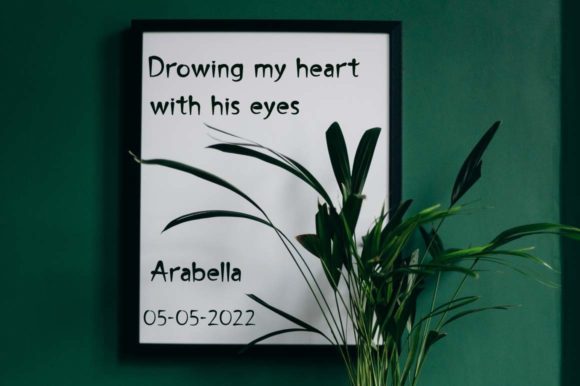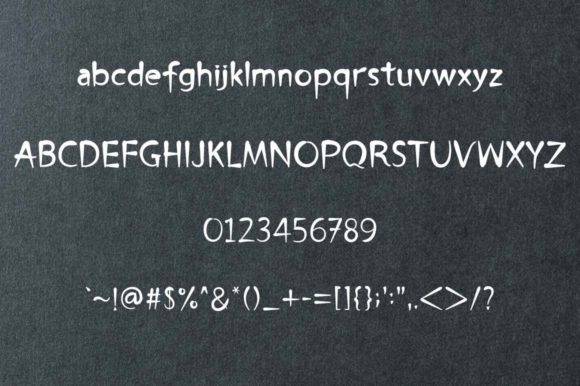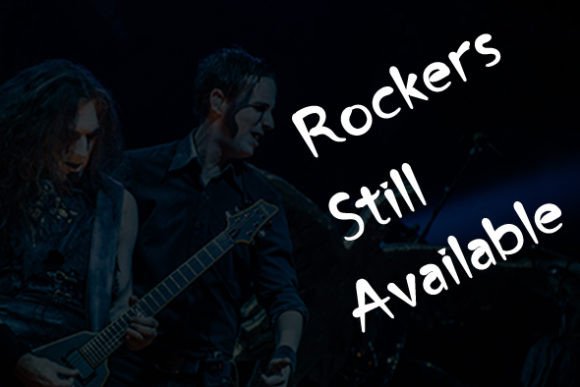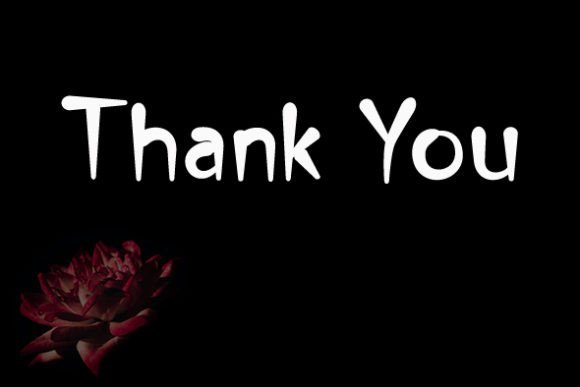
Introduction to Pionner Font
Have you ever been stuck on a creative project, staring at a blank canvas or a blank sheet of paper, and suddenly, a spark of inspiration strikes? It’s that moment when everything falls into place, and your vision starts to take shape. For designers, this moment is priceless, and the right font can make all the difference. That’s where the Pionner Font comes in – a cool and casual handwritten font that can elevate your work to the next level.
As a valuable design resource, Pionner Font offers a high-quality, unique look that’s perfect for a wide range of creative projects. Whether you’re designing t-shirts, creating logo names, or working on digital products, this font is sure to add a touch of elegance and sophistication. With a transparent background, you can easily layer it with other design elements to create a visually stunning effect.
Key Features of Pionner Font
- High-quality design resource suitable for various creative projects, including graphic design, digital art, and publishing.
- Comes with a transparent background, allowing for easy integration into different design elements.
- Includes a range of sizes, from 12 to 72 points, making it versatile for various design applications.
- Designed with a unique, modern aesthetic, making it an excellent choice for designers seeking a distinctive look.
Honest Review: Pionner Font
As a designer, I’m always on the lookout for high quality design resources that can elevate my creative projects. Recently, I came across the Pionner Font, and I’m excited to share my thoughts on it.
What works well: ✨ The Pionner Font is incredibly versatile, with a clean and modern design that works well for a variety of creative projects. The font is available for free download, making it a great option for designers on a budget. The transparent background is also a plus, allowing for seamless integration into any design.
- Perfect for digital designs, such as logos, icons, and graphics
- Works well for print designs, including business cards, brochures, and flyers
What doesn’t work well: ⚠️ While the Pionner Font is a great resource, it’s not without its limitations. The font may not be suitable for projects that require a more traditional or vintage aesthetic. Additionally, the font’s simplicity may make it feel a bit generic for more complex designs.
Overall impression: The Pionner Font is a solid addition to any designer’s toolkit. While it may not be the most unique or groundbreaking font, it’s a reliable and high-quality resource that’s perfect for a variety of creative projects.
How to Use Pionner Font
Pionner Font is a high-quality design resource perfect for any creative project. With its sleek and modern design, it’s ideal for adding a touch of sophistication to your visuals.
Using Pionner Font in Design Applications
Pionner Font can be used in a variety of design applications, including:
Tips for Getting the Most Out of Pionner Font
For the best results, use Pionner Font on a transparent background to really make your design pop. You can also experiment with different font sizes and colors to find the perfect combination for your project.
Pionner Font is perfect for a variety of creative projects, including:
- Business cards and resumes
Alternatives to Pionner Font
1. Arial Rounded
Arial Rounded is a sans-serif font that is suitable for creative projects requiring a clean and modern design. It features a rounded edge, making it easy to read, especially on digital devices. Download it for free and use it for a variety of design resources, including websites, magazines, and advertisements.
When to use: Use Arial Rounded for a creative project that requires a high-quality font with a transparent background.
Comparison to Pionner Font: Unlike Pionner Font, Arial Rounded is a more traditional font with a rounded edge, making it more suitable for digital applications.
Great Vibes is a script font that is perfect for designers looking for a unique and creative font. It features a high-quality design with a transparent background, making it ideal for use in design resources, such as magazines, posters, and advertisements.
Yes, the Pionner Font supports transparent backgrounds, making it ideal for designs that require a clear or see-through effect. This feature is particularly useful for digital design, where a transparent background can enhance the overall aesthetic of your project.